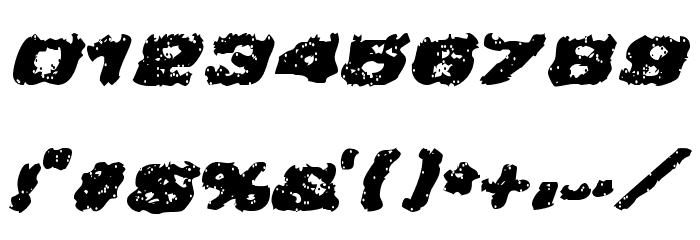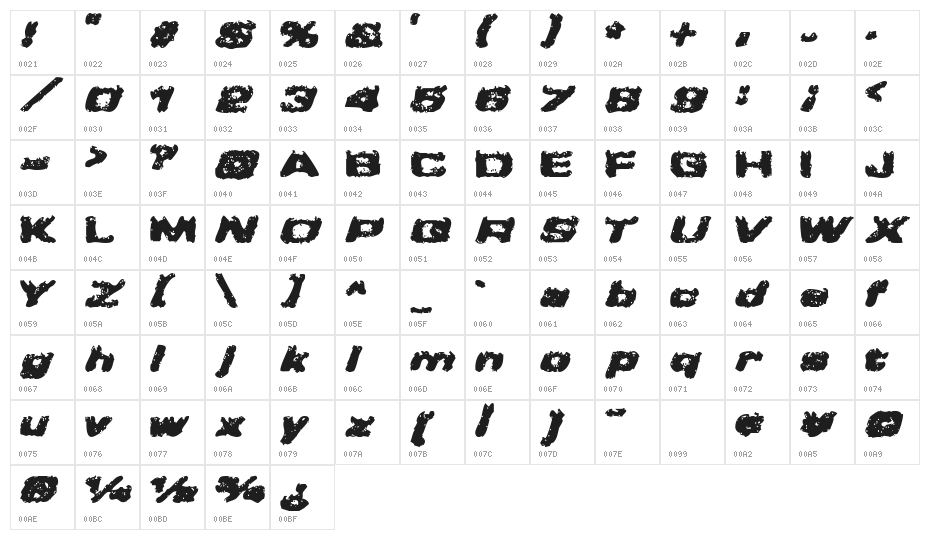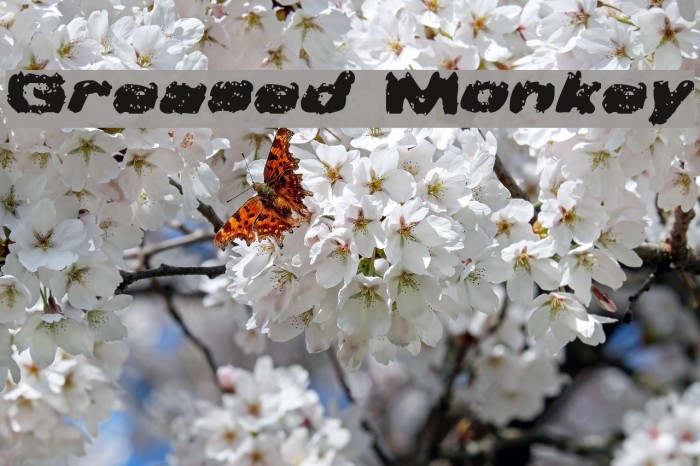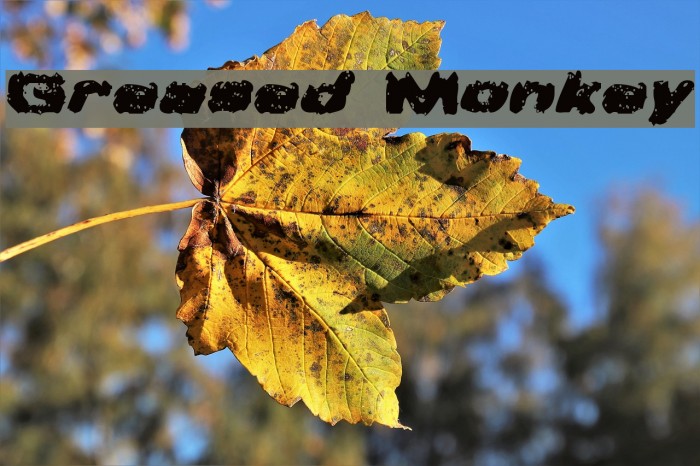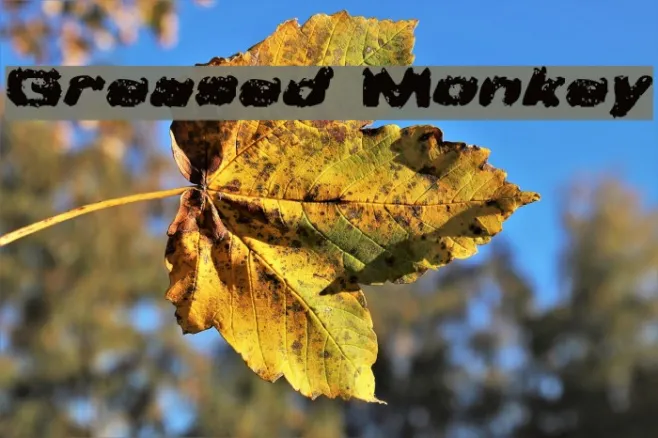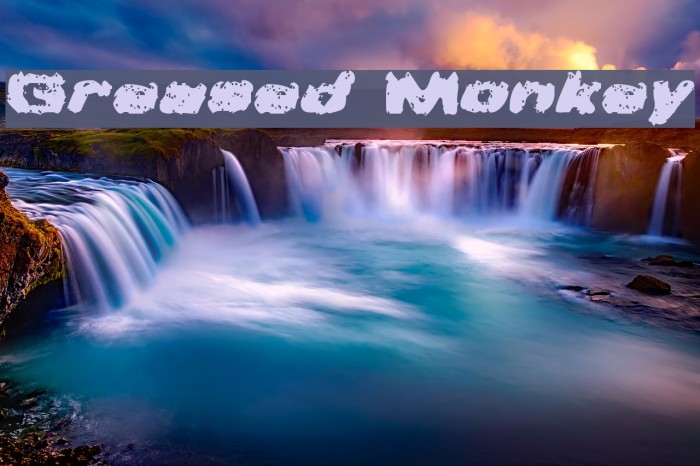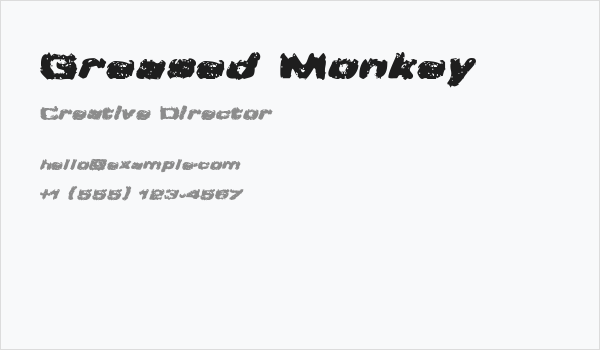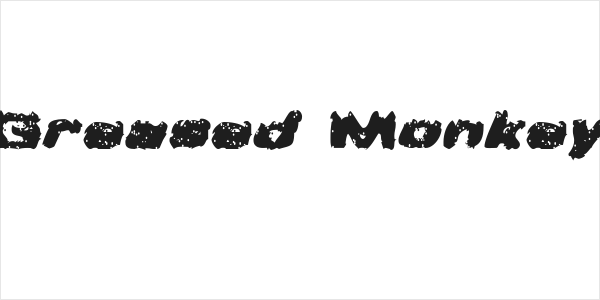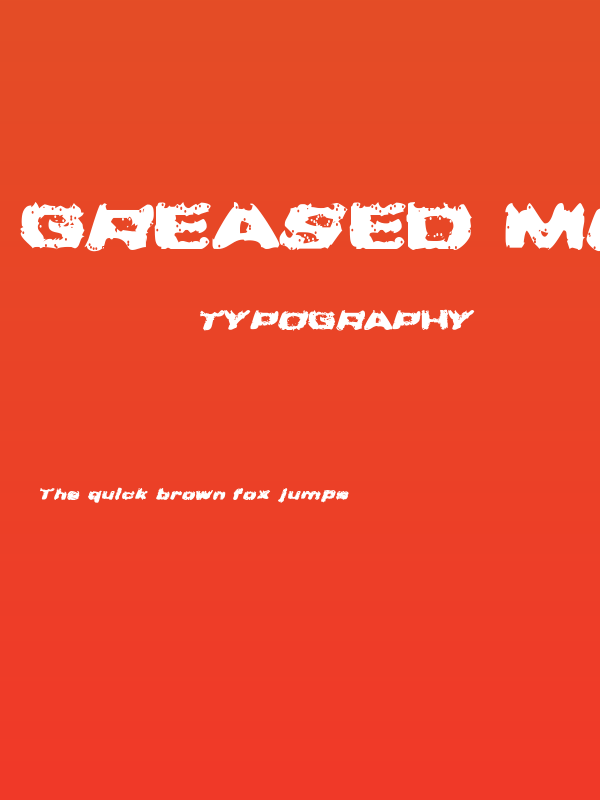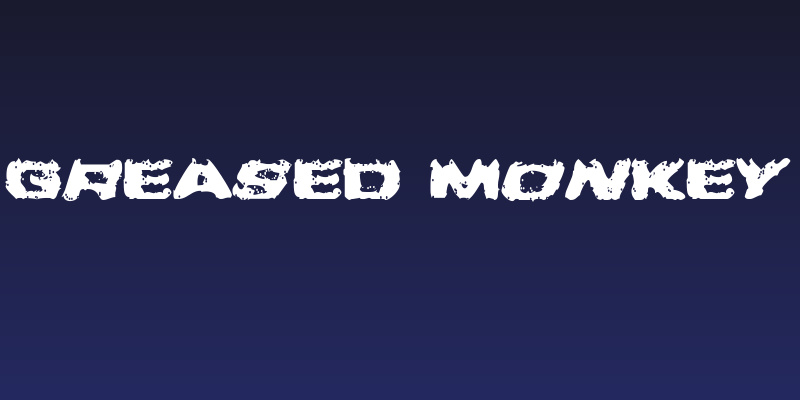
Greased Monkey Font
Greased Monkey Description
This font features a rugged, distressed appearance, reminiscent of worn-out textures or surfaces. The characters are bold and have a rough, uneven edge that gives them a gritty, industrial feel. The uppercase and lowercase letters maintain a consistent style, with the uppercase being slightly more pronounced. Numbers and special characters follow the same design, ensuring uniformity across all glyphs. The font's unique texture makes it stand out, ideal for projects that require a bold, eye-catching typeface.
| Overall Style | Industrial, Gritty |
| Proposed Projects | Ideal for posters, album covers, branding for edgy or industrial-themed products, and any design requiring a bold statement. |